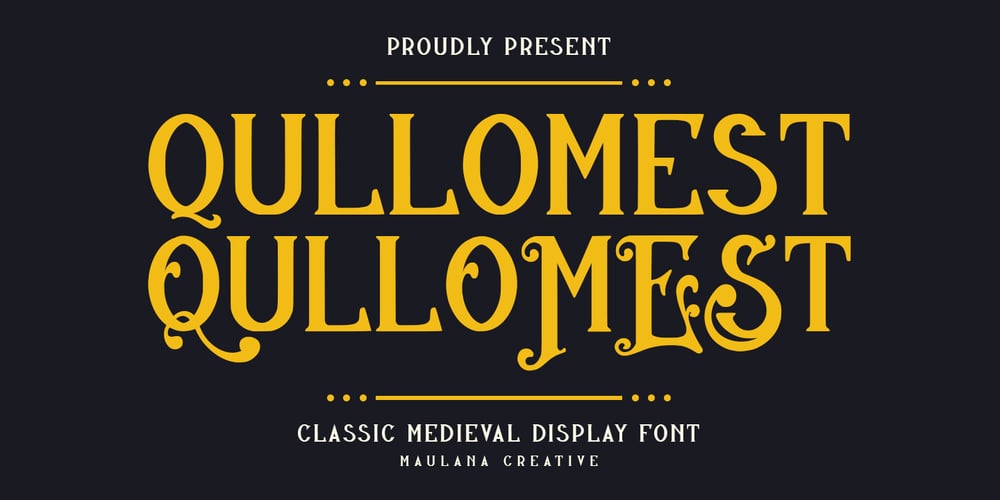
MC Qullomest Font Family was designed by Gilang Maulana and published by Maulana Creative. MC Qullomest contains 1 styles and family package options. Qullomest is a experimental classic serif display font. Bold stroke, fun character with a bit of alternates. To give you an extra creative work. Qullomest font support multilingual more than 100+ language. This font is good for logo design, Social media, Movie Titles, Books Titles, a short text even a long text letter and good for your secondary text font with script or serif. Make a stunning work with Qullomest font.